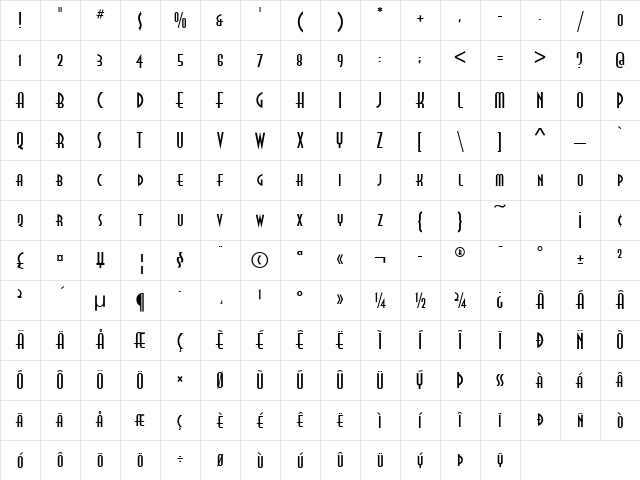
Complete AnnaEF Regular glyph index. Displaying only characters natively supported by AnnaEF Regular font.
AnnaEF is a composed and adaptable typeface that performs quietly and consistently across a wide range of design contexts.